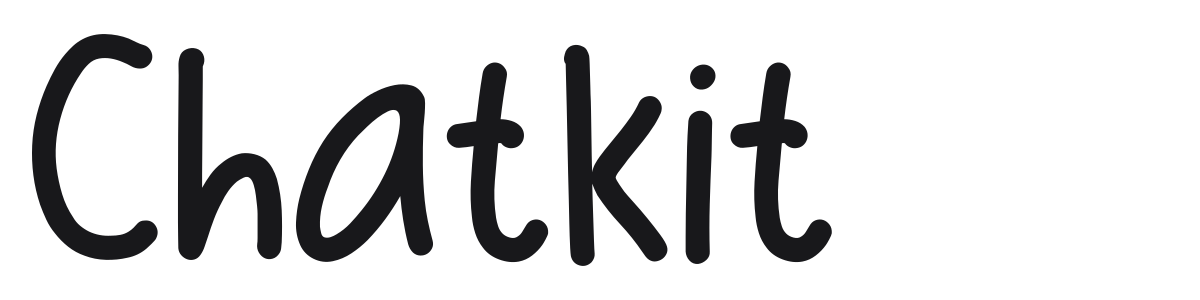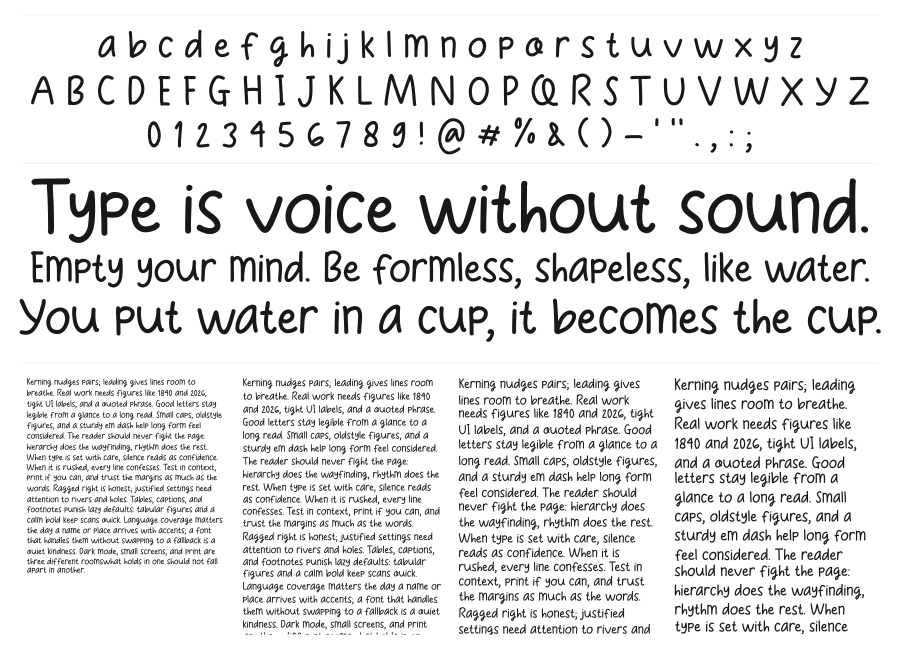
Chatkit
Chatkit is a casual handwritten font with rounded terminals and a naturally bouncing rhythm that feels like quick, confident pen lettering. The low stroke contrast and organic irregularities give it genuine warmth without looking labored. Strong for informal branding, packaging labels, children's content, and anywhere a human touch matters.